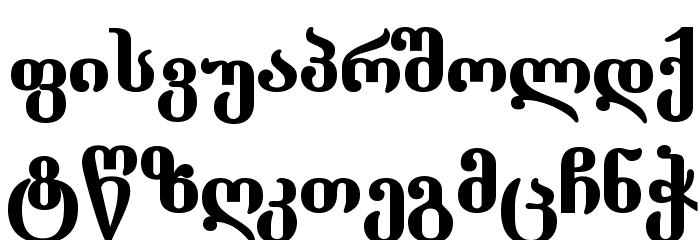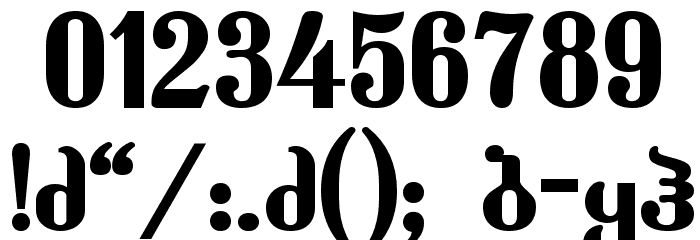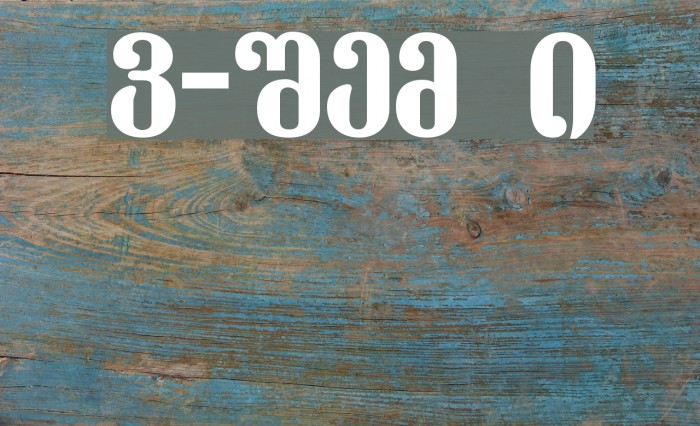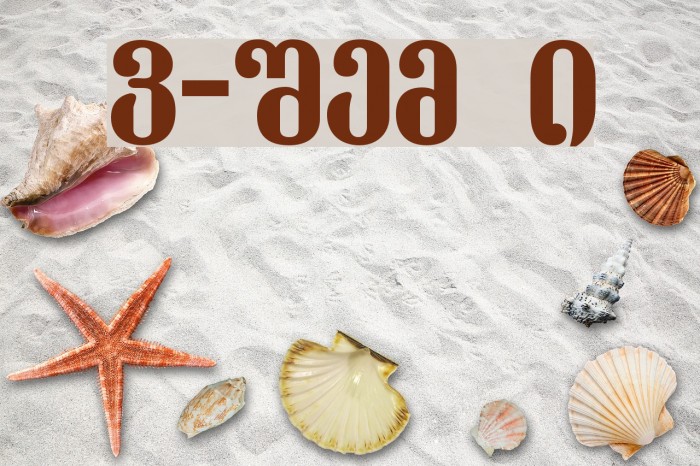
Dumbadze-ITV Bold Font
This font features a bold and expressive style with a strong presence. The characters are rounded with a distinct curvature, giving them a playful yet assertive look. The strokes are thick and consistent, contributing to a high contrast appearance. The font is designed to capture attention, making it suitable for impactful headlines or titles. Its unique character shapes add a decorative flair, while maintaining readability. The numbers and special characters are crafted with the same boldness, ensuring uniformity across all elements.
A bold, expressive font with high contrast and decorative flair.
- Proposed Projects: Ideal for branding, posters, headlines, and any project requiring a bold statement.